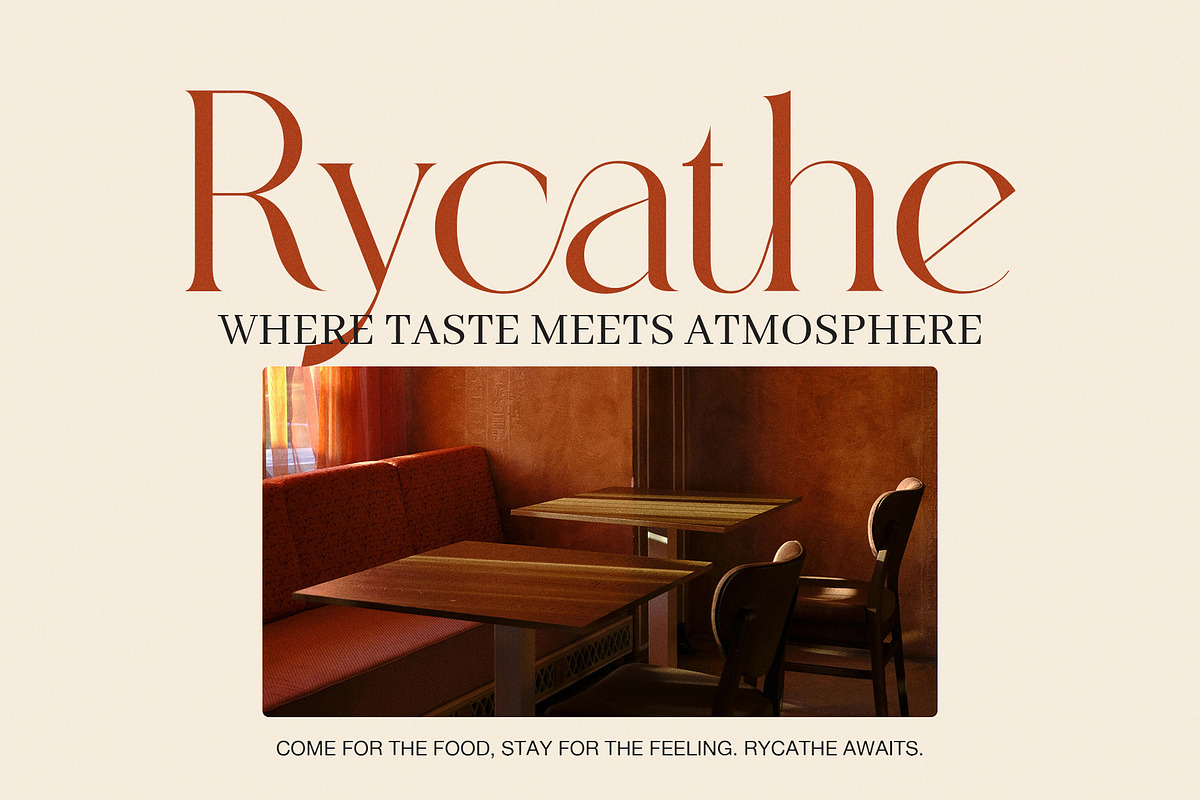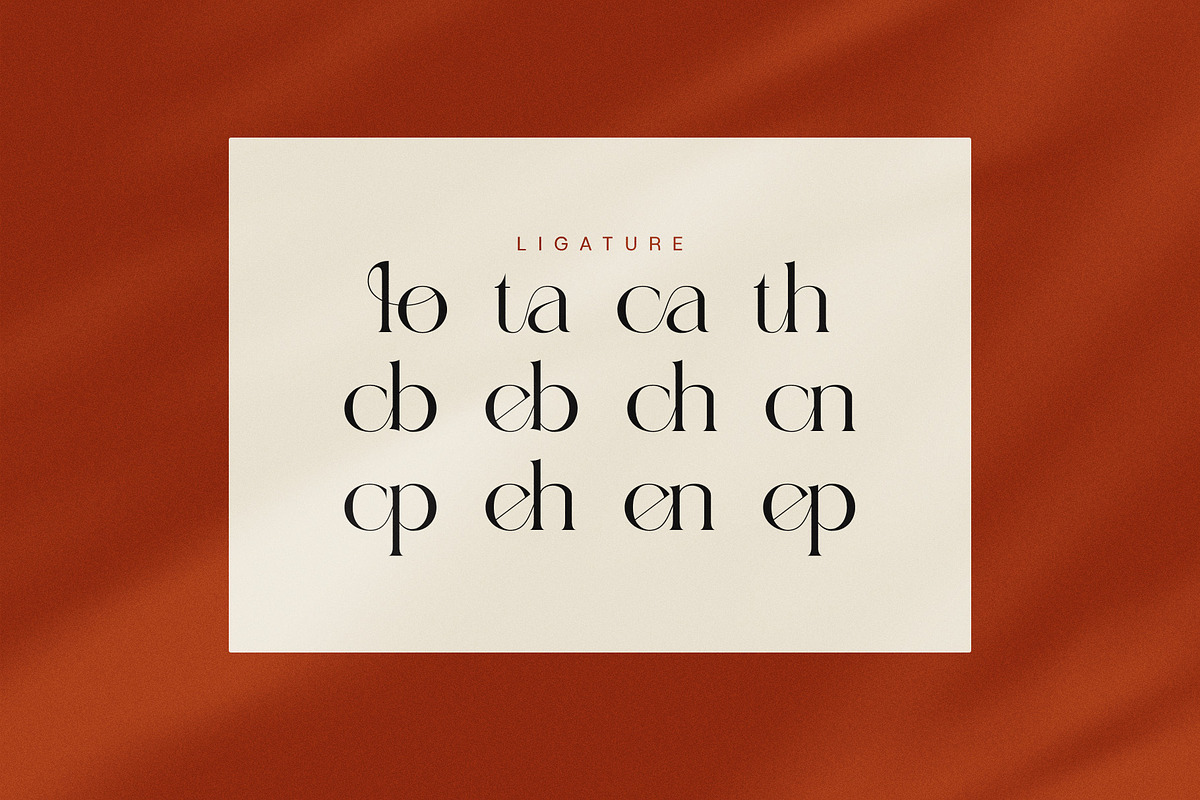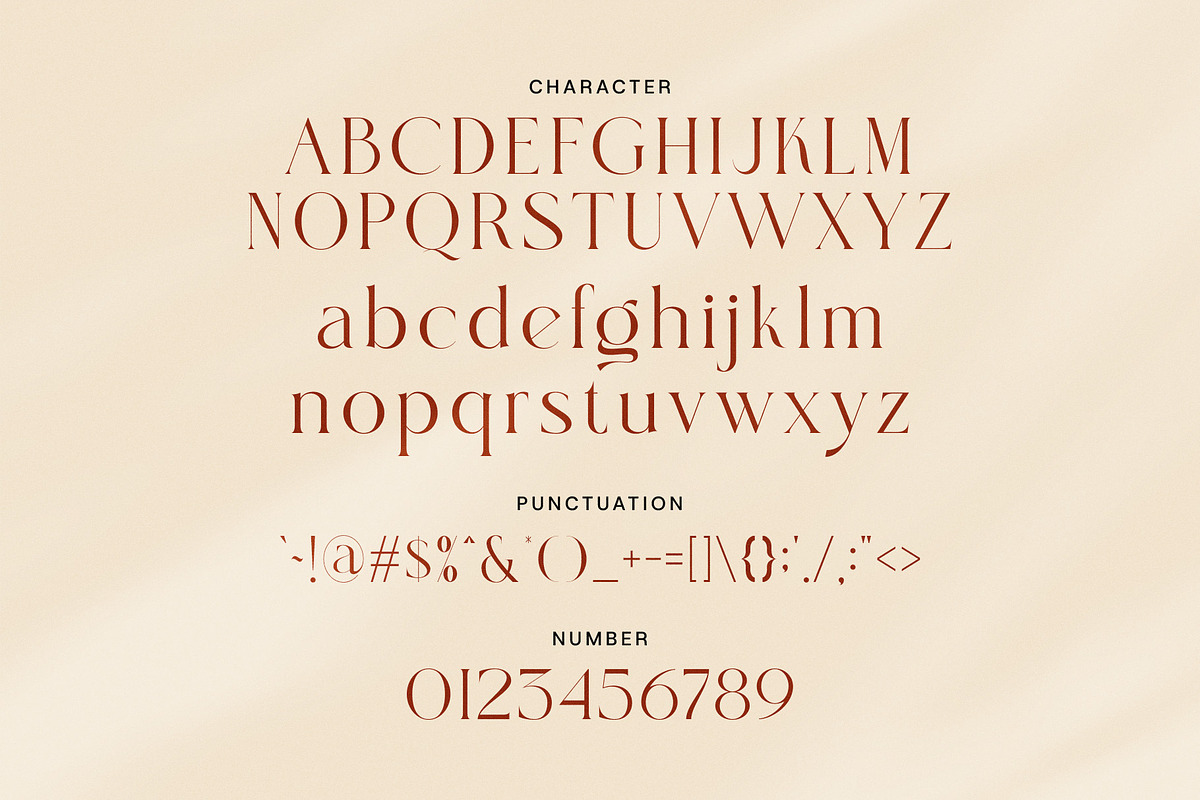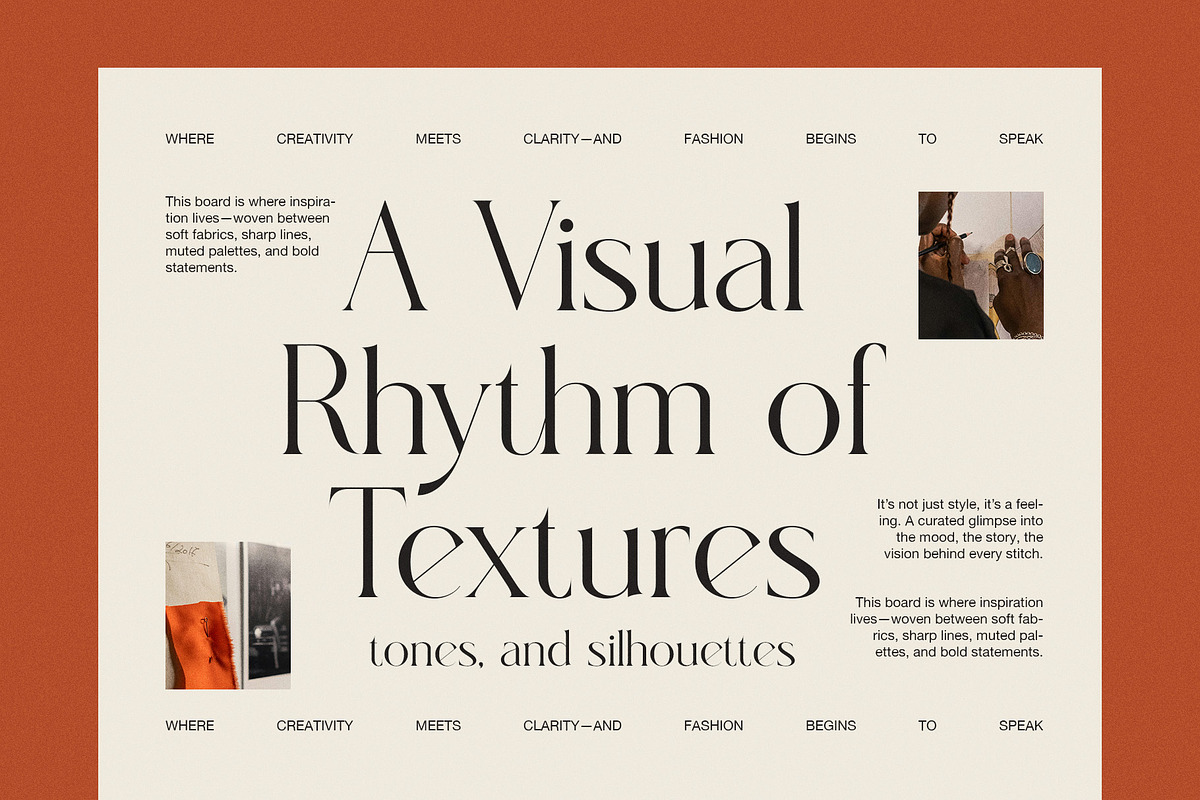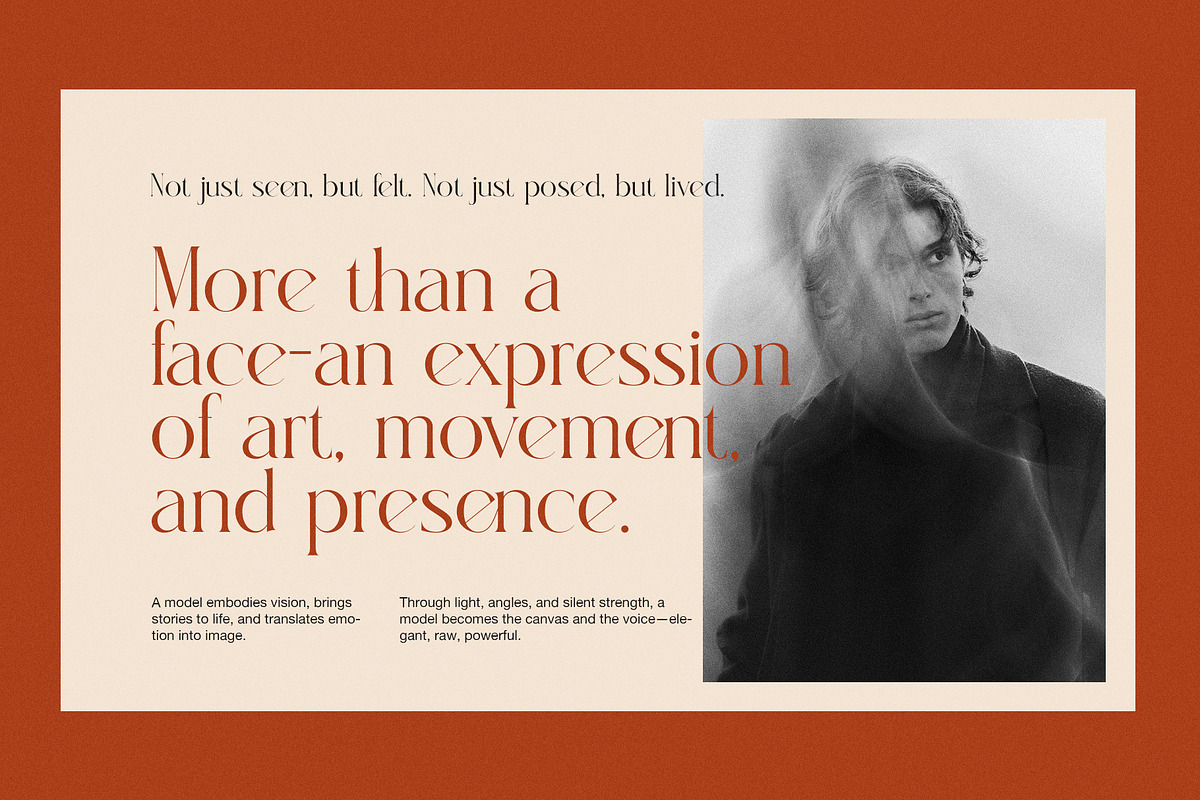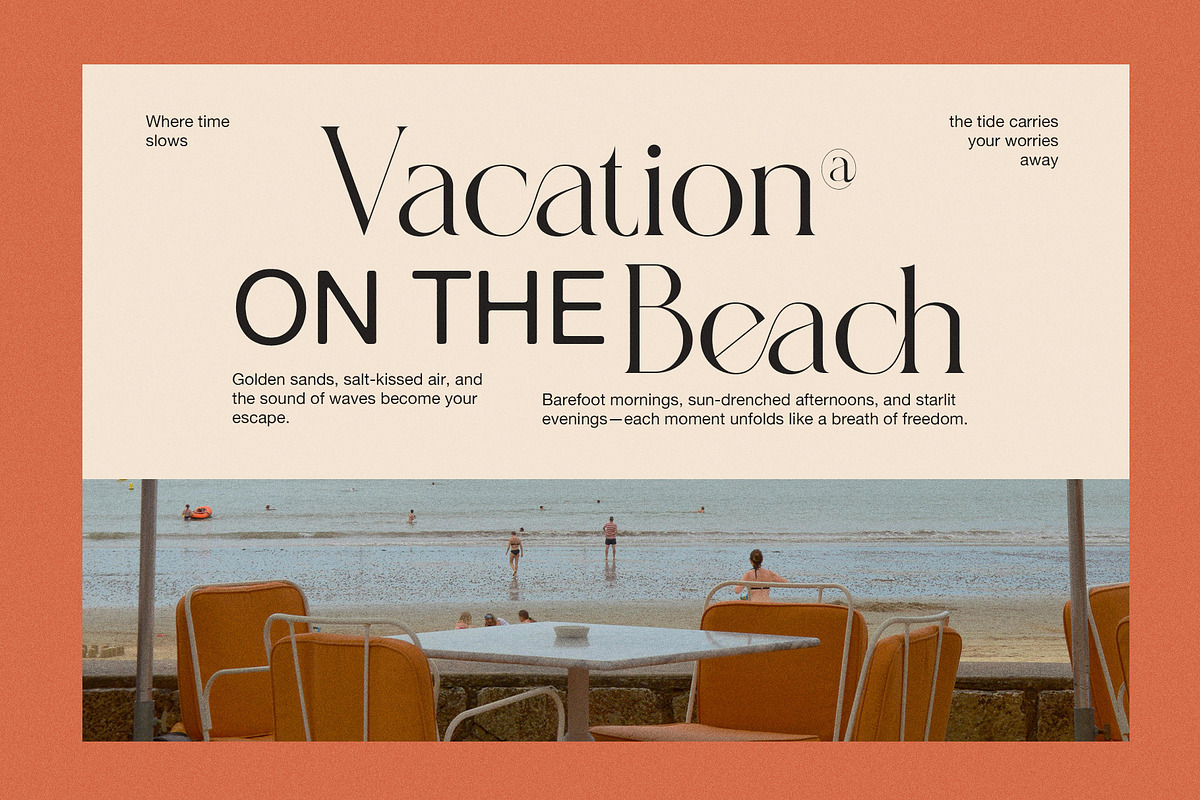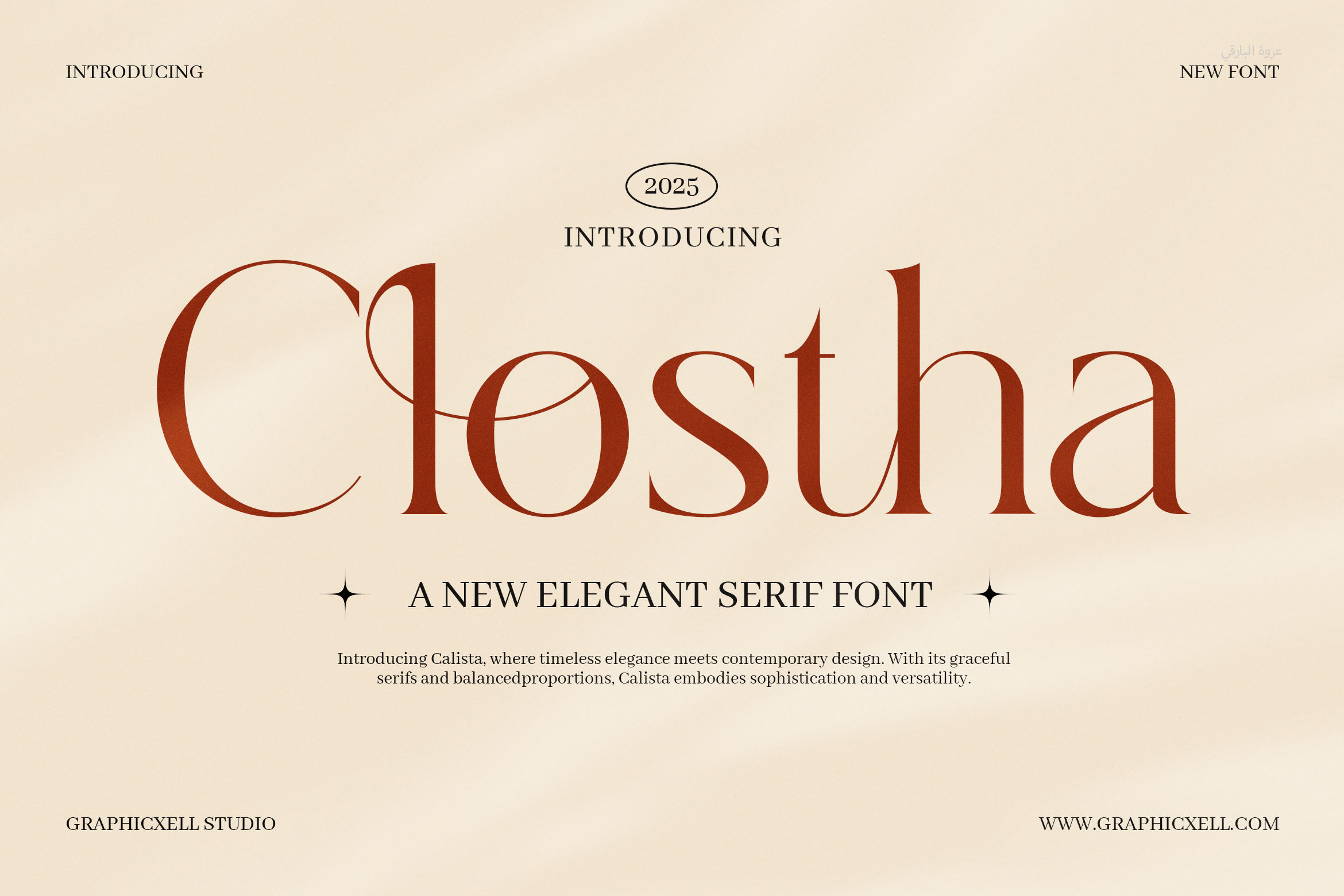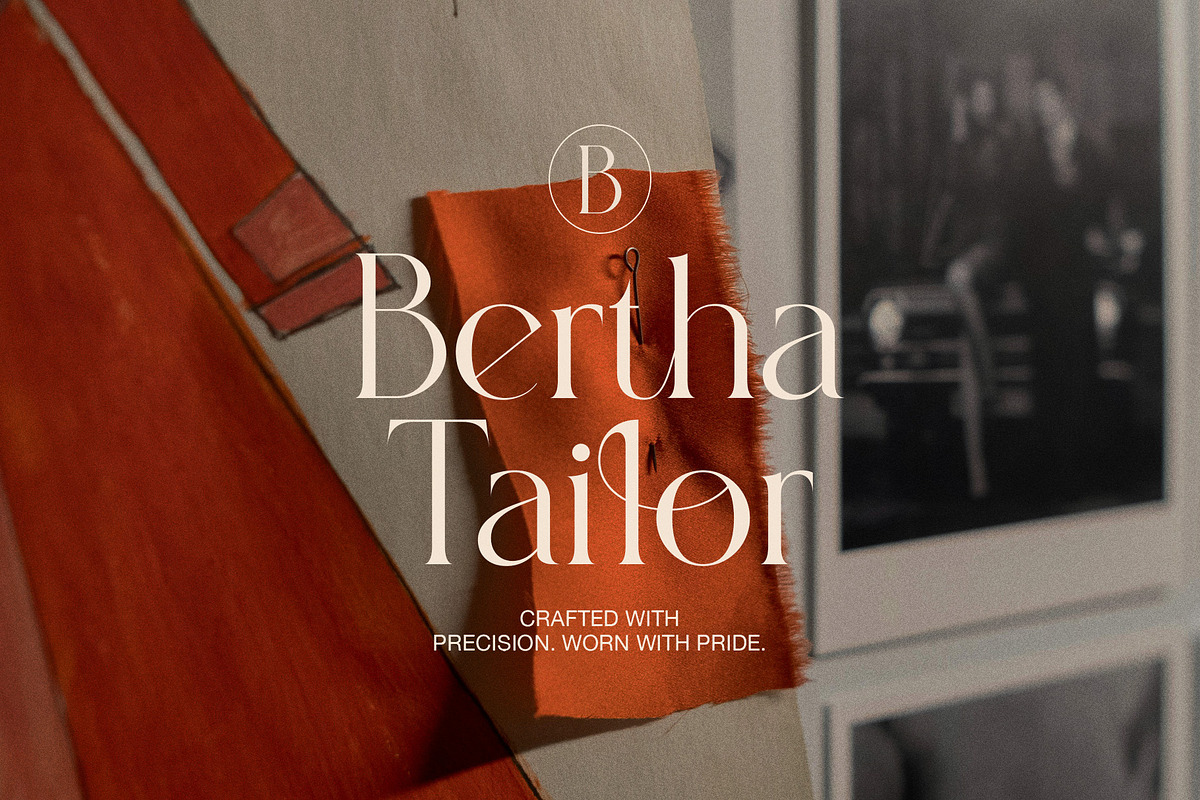
Clostha Elegant Serif Font
Clostha Serif is a stylish and classy font made for bold and modern designs. It blends the beauty of classic serif fonts with a clean, modern twist. Because of its high contrast and sharp lines, it stands out in logos, branding, posters, and magazine layouts.
This font is made for anyone who wants to add a premium touch to their work. It works best in large sizes where its fine details can shine. At the same time, it stays clean and readable. If you’re building a brand, designing a wedding invite, or crafting a bold title, Clostha Serif is a smart choice.
Top reasons to choose Clostha Serif:
Strong contrast for a bold and sharp look
Clean lines that bring a modern feel
Elegant curves for a high-end finish
Pairs well with simple sans-serif fonts
Great for logos, packaging, and titles
Supports many languages
Comes with ligatures and special features
Clostha Serif is more than just a font — it’s a tool for designers who want to make a strong impression. You can use it in print or online, and it looks great on light or dark backgrounds. Plus, it adds a stylish tone to any layout without feeling too busy.
It also helps products and brands feel more trusted and refined. If you're a designer, brand owner, or business leader, this font will give your work a clean and polished look.
So if you want your design to look elegant, strong, and modern, Clostha Serif is the font for you. Try it today and see how it lifts your design work to a new level.